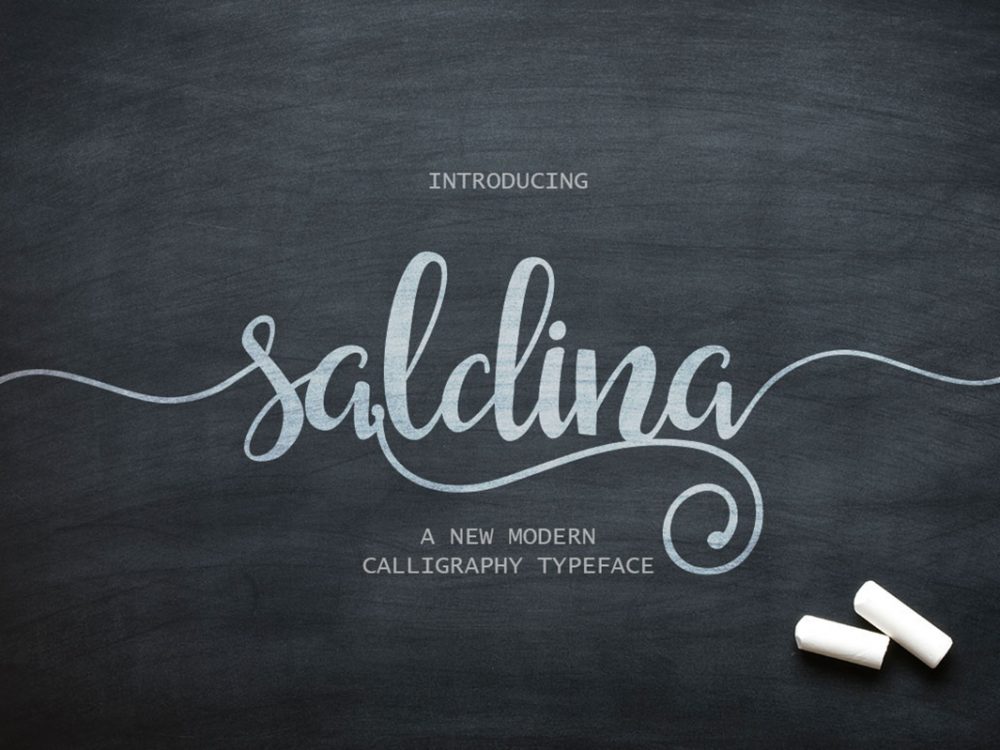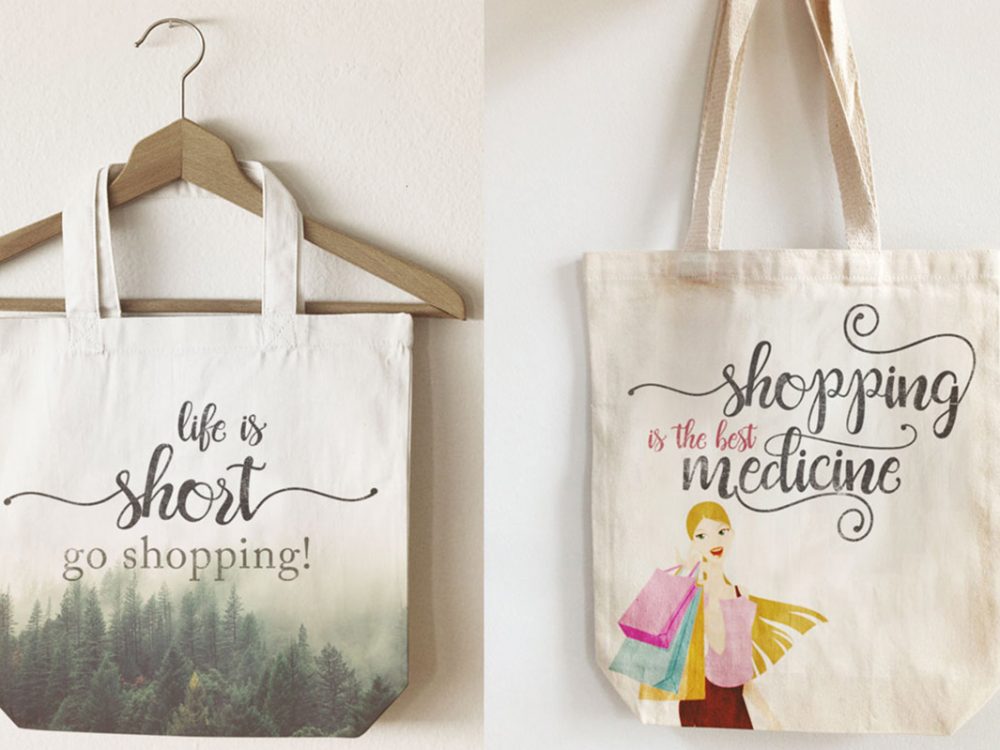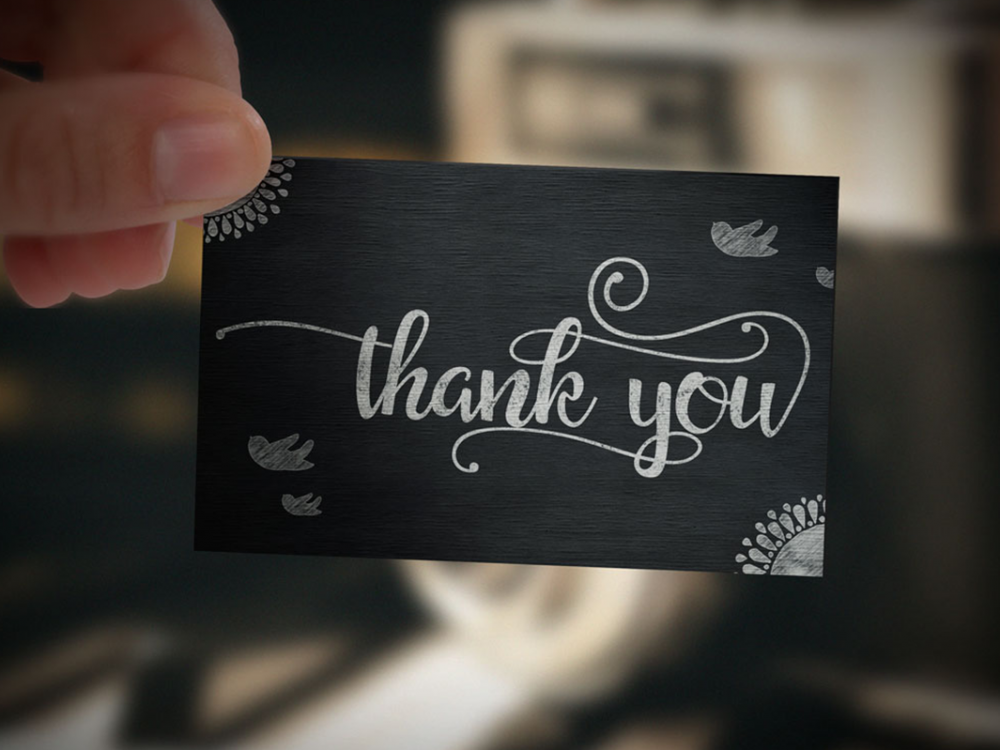
Saldina Free Font
Saldina Free Font is a stylish, beautiful handwritten font that combines brush style and traditional handwriting. This font is perfect for creating various design projects that require a handwritten font. These can be posters, postcards, flyers, prints, and more. Get the full version to get the complete set which includes 430 glyphs and OpenType features such as Ligature, Contextual Alternates, Stylistic Alternates, and Stylistic Sets.